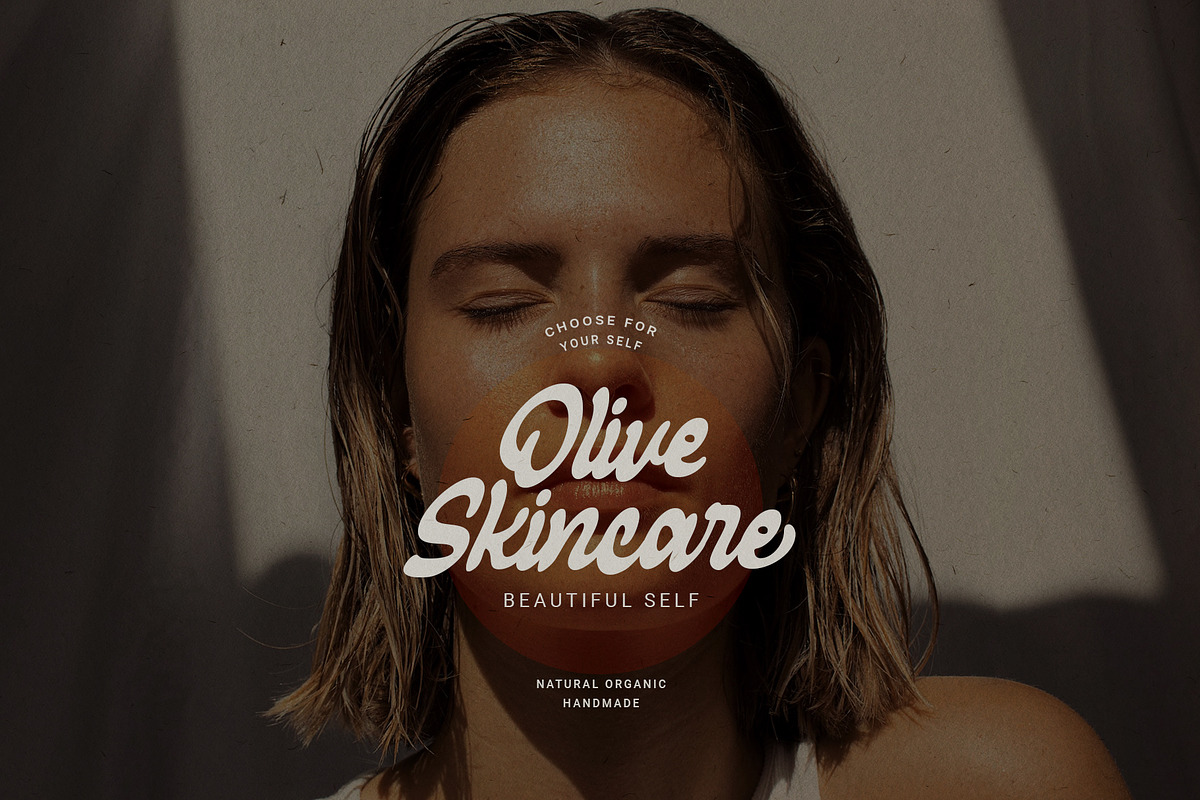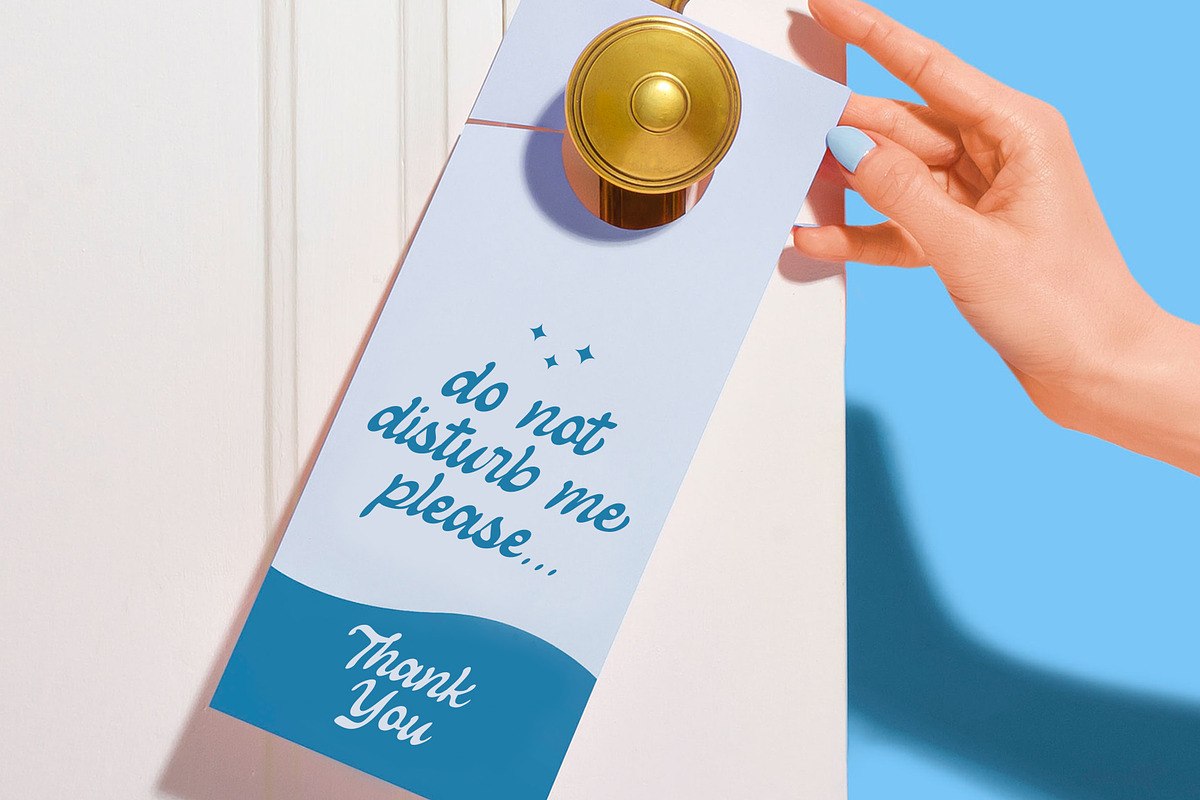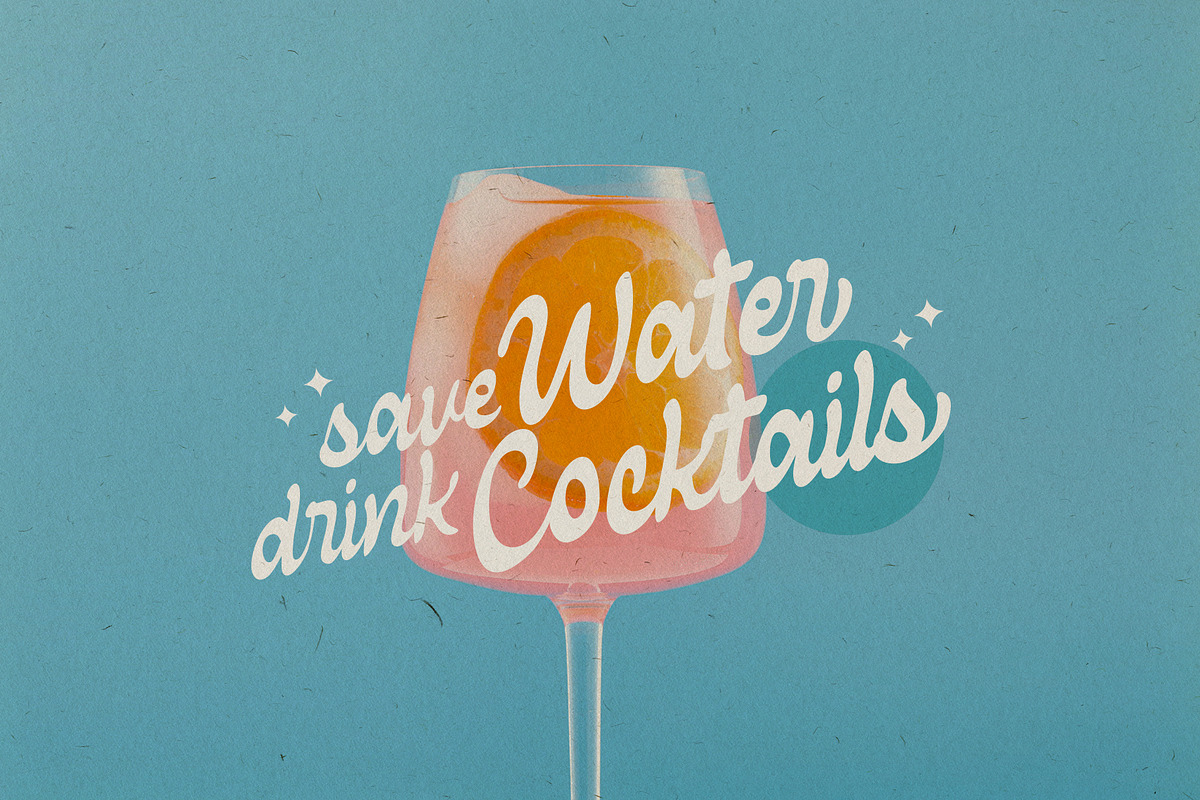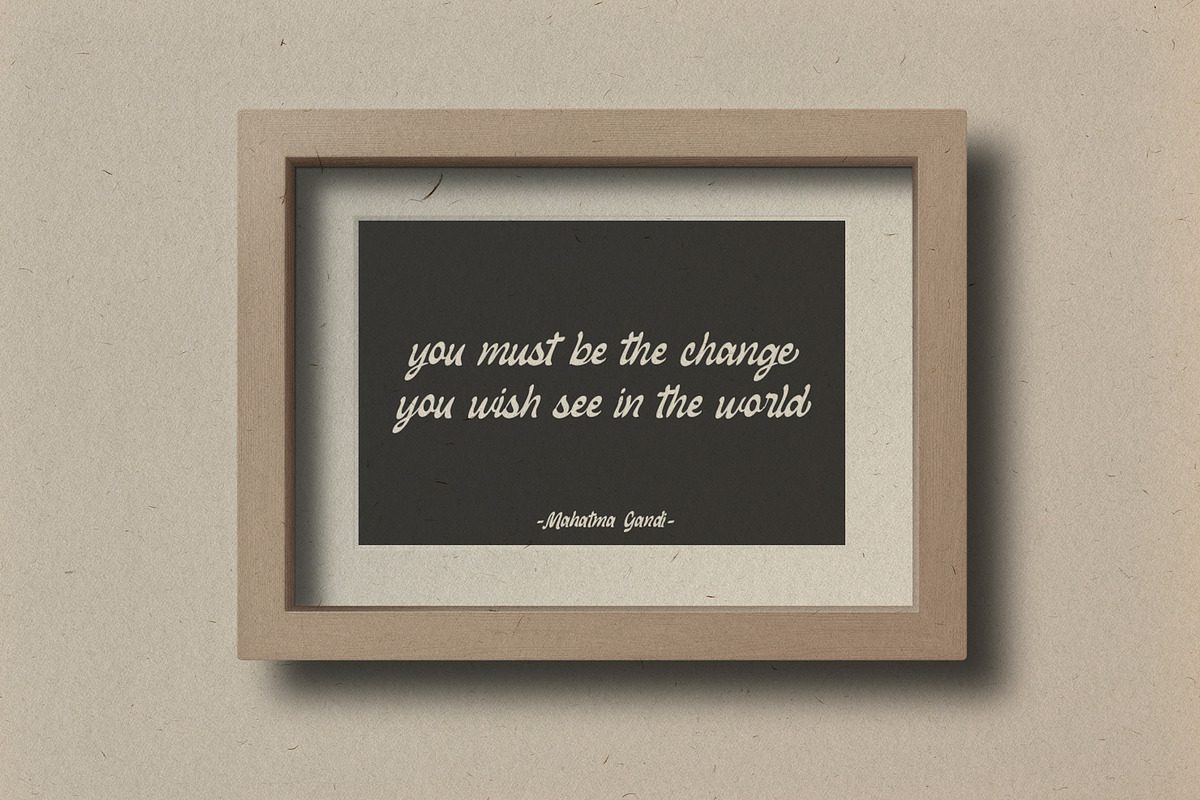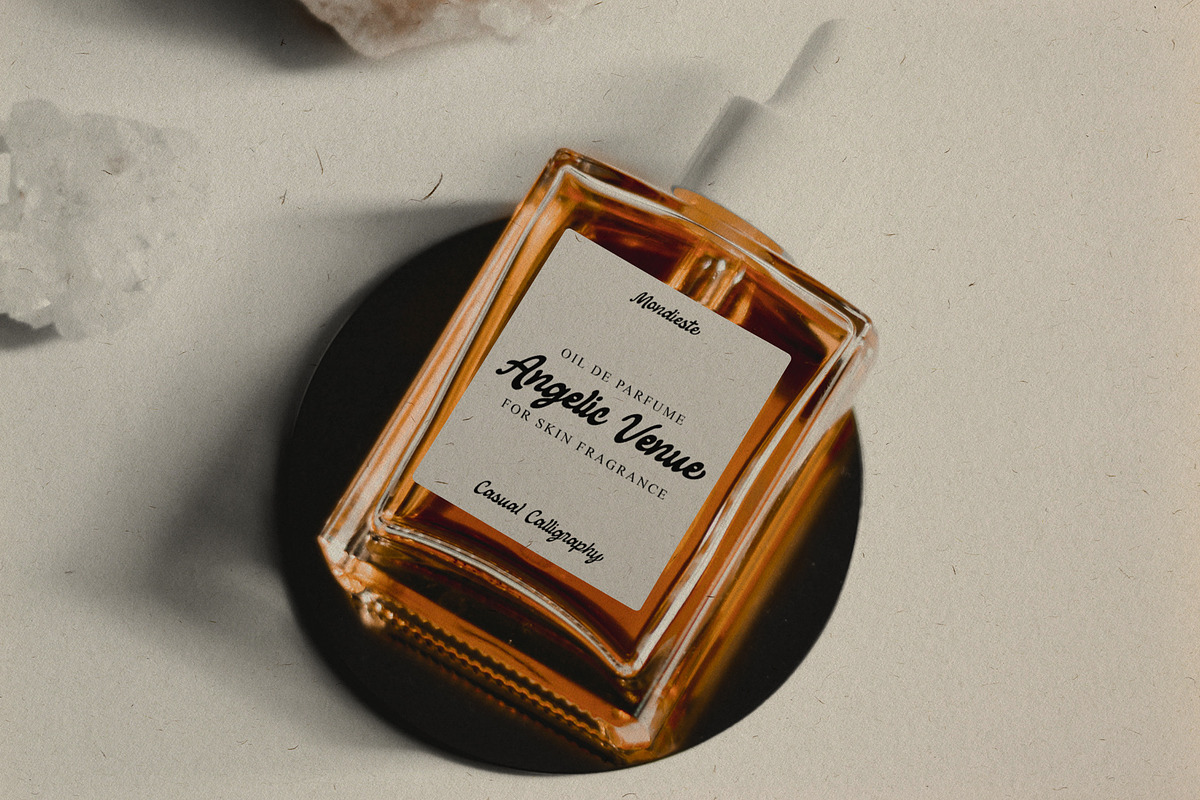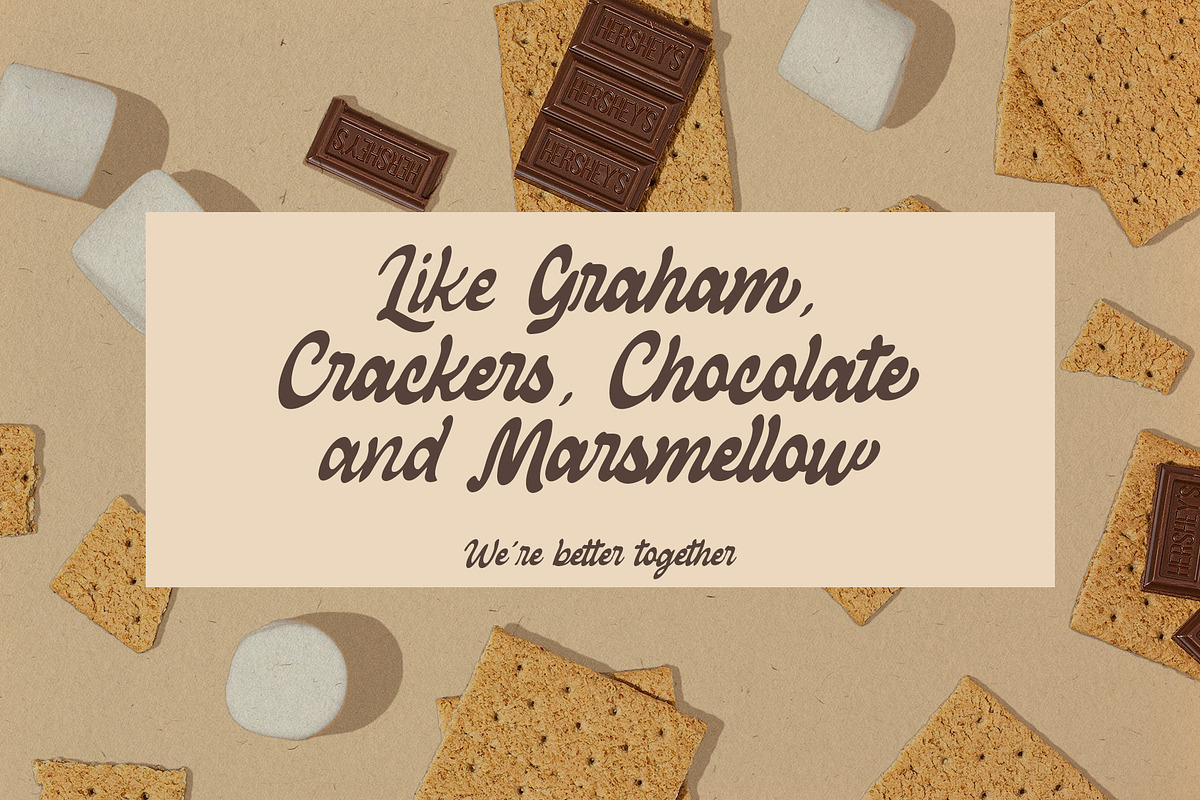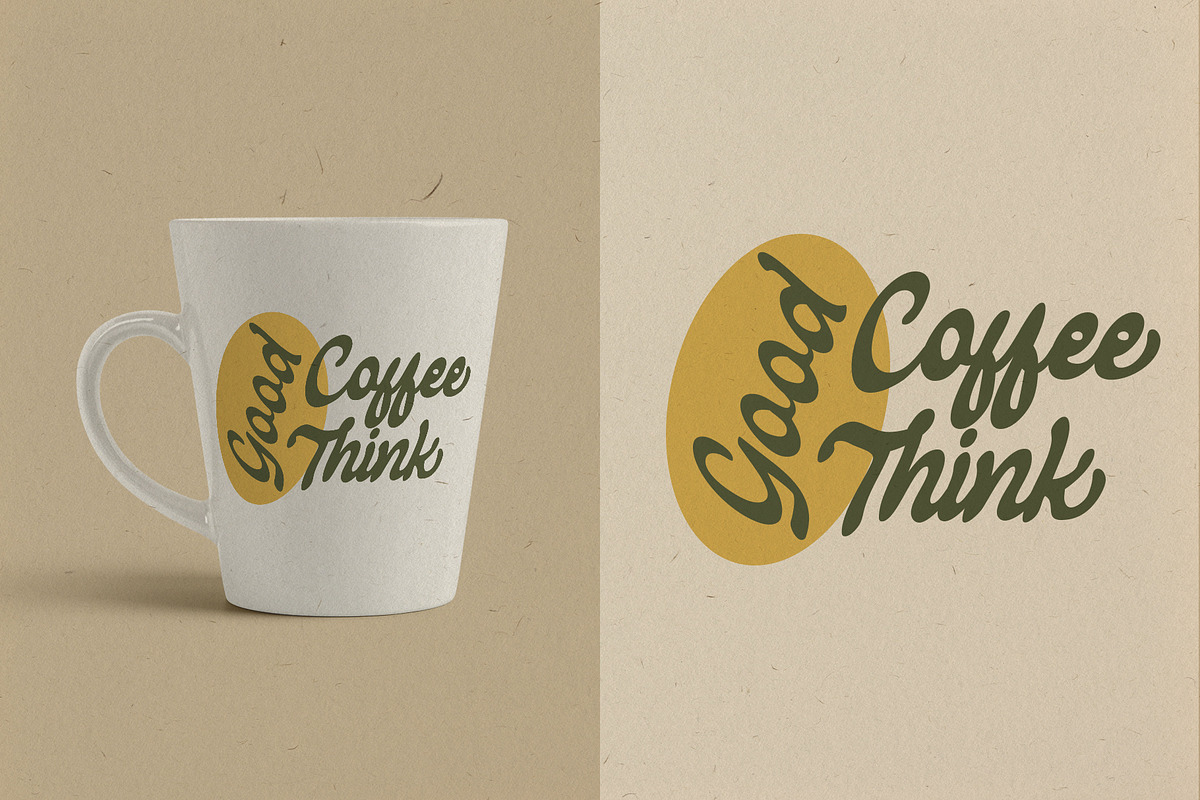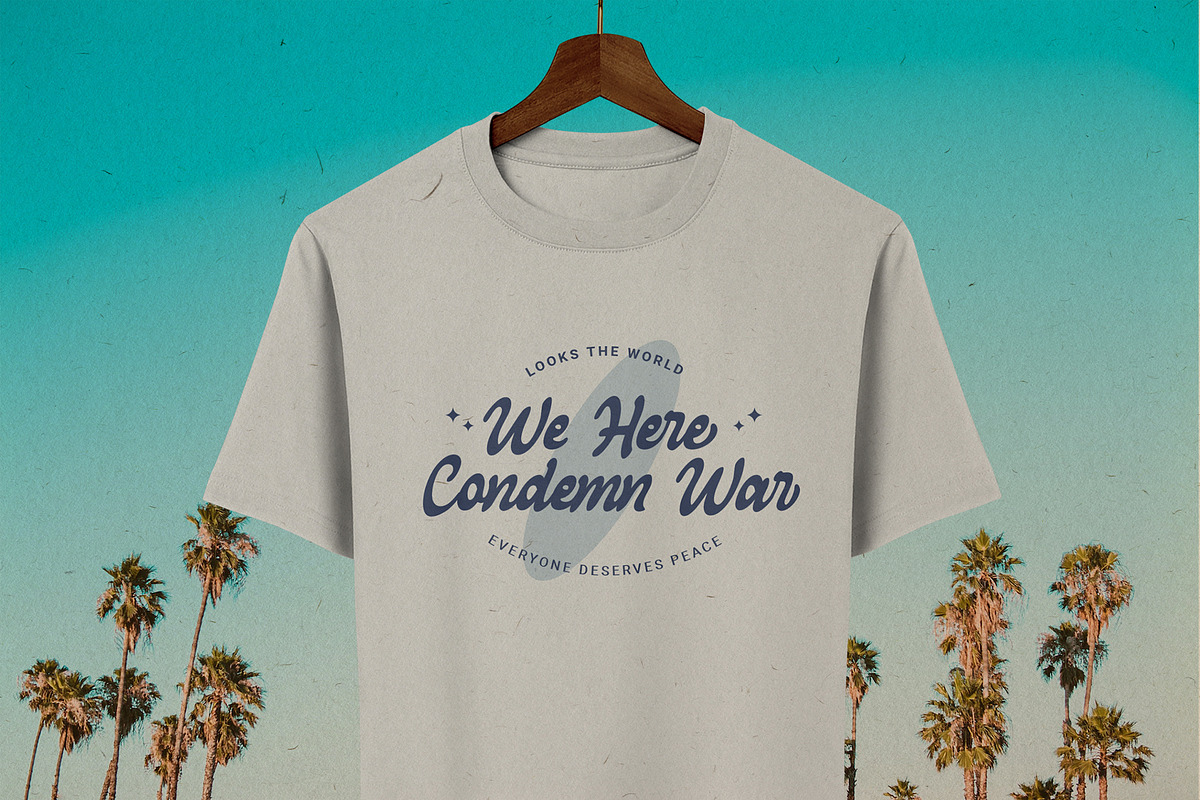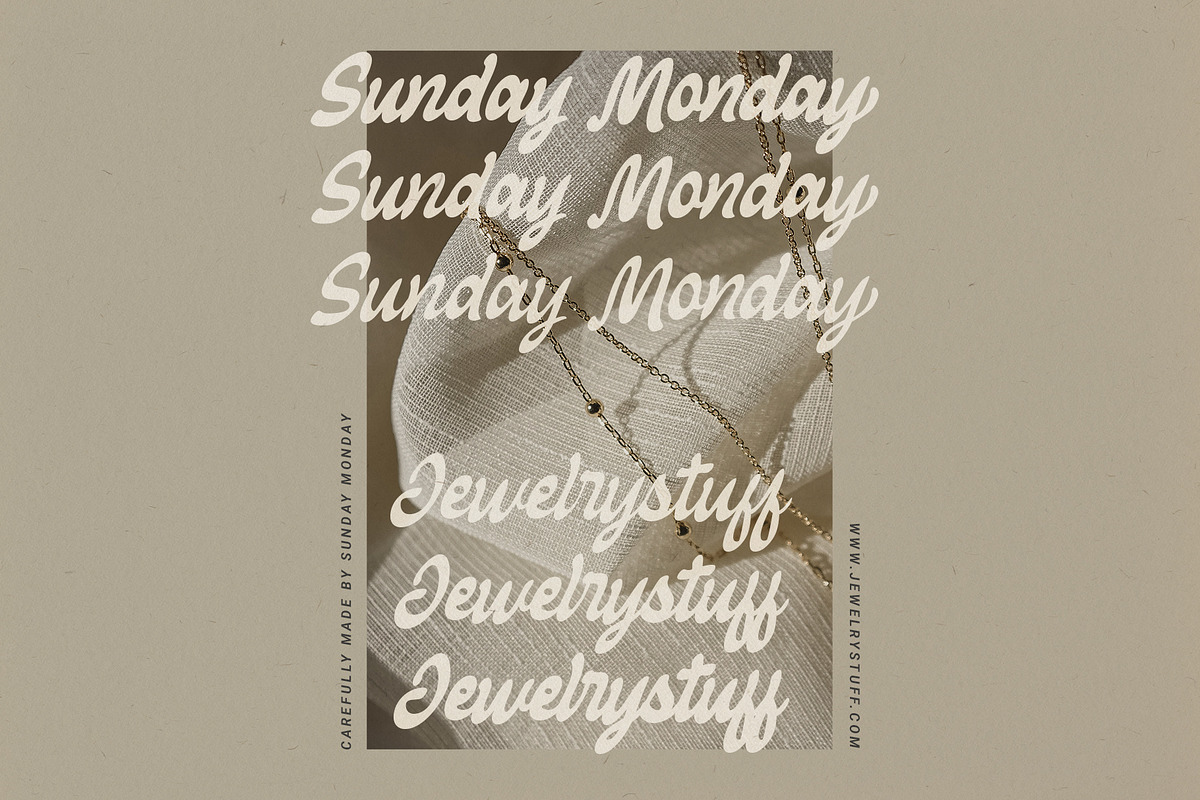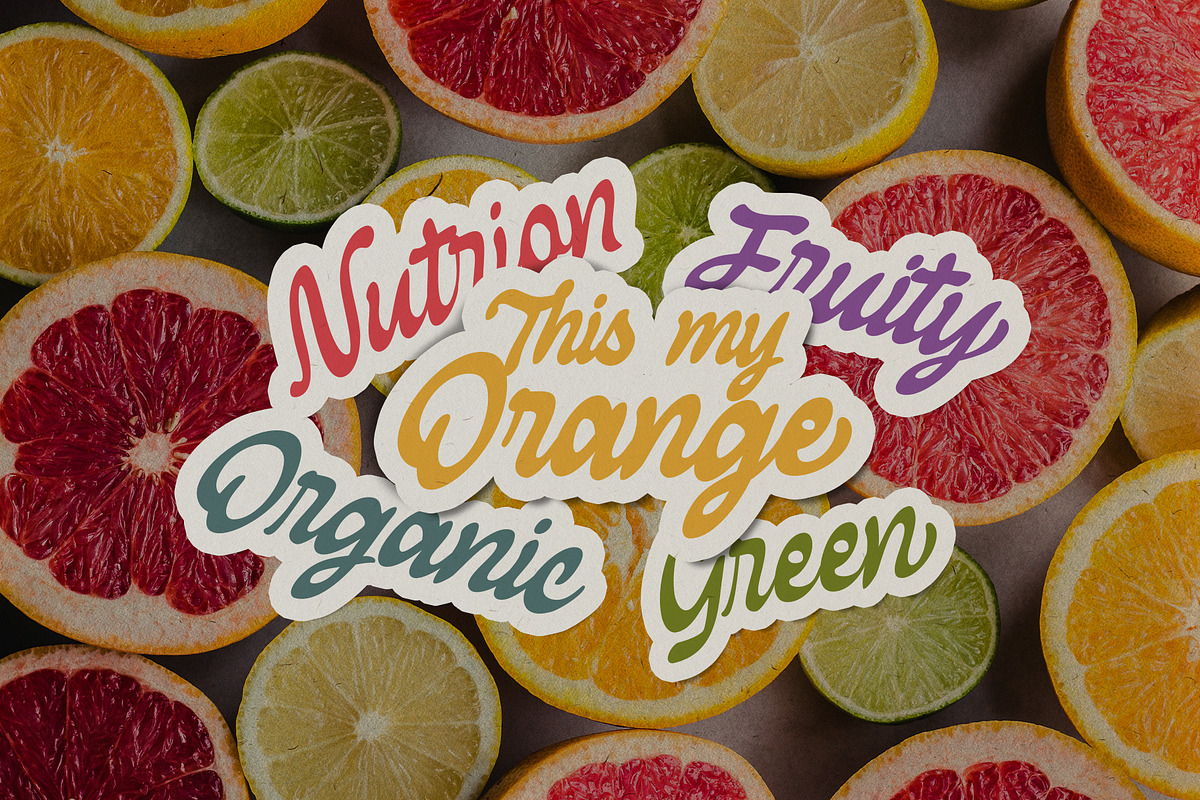
Mondieste - Casual Calligraphy Font
Mondieste is casual calligraphy font that embodies a relaxed, informal, and effortlessly stylish handwriting style that adds a personal and friendly touch to any design. This type of font is characterized by its fluid strokes, feature slight variations curves, and a sense of organic movement, reminiscent of the art of hand-lettering. The aim of a casual calligraphy font is to evoke a sense of warmth, approachability, and familiarity, making it suitable for a wide range of creative applications.